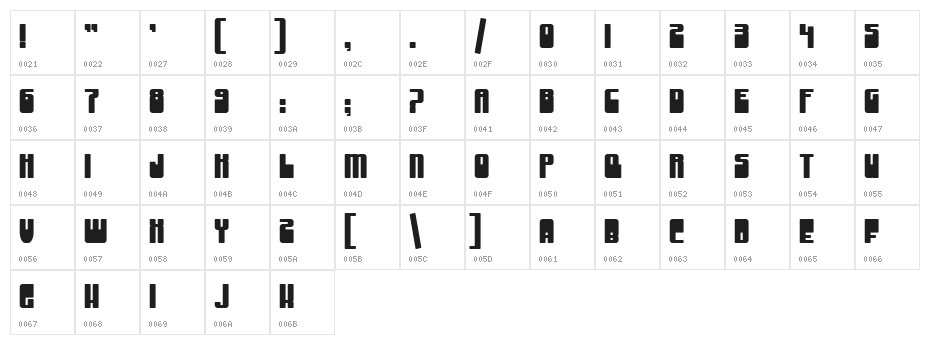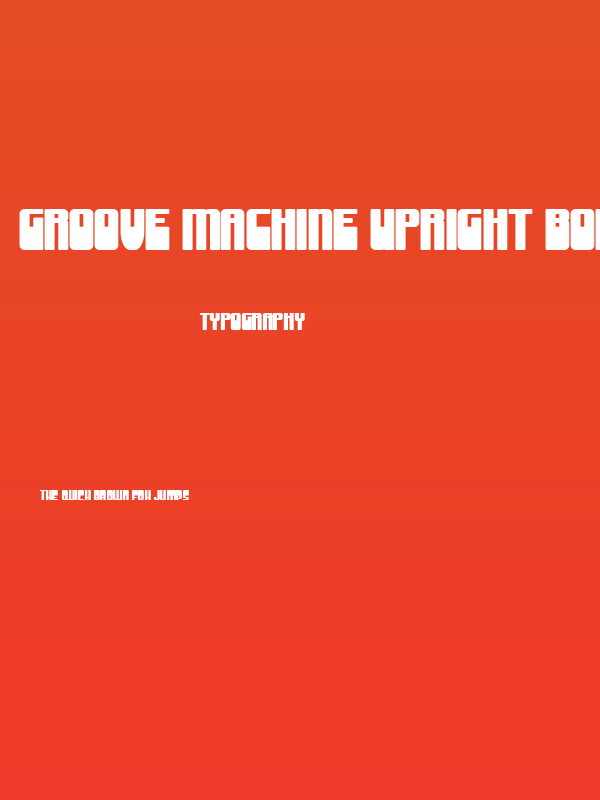
Groove Machine Upright Bold Font
Groove Machine Upright Bold Description
This font features a bold, geometric design with a strong presence. The characters are blocky and uniform, creating a sense of stability and modernity. The uppercase and lowercase letters share a similar structure, enhancing the cohesive look. Numbers and special characters maintain the same bold style, ensuring consistency across all text elements. The font's thick strokes and minimal contrast make it highly legible, even at smaller sizes. Its unique style is both eye-catching and versatile, suitable for a variety of design applications.
| Proposed Projects | Ideal for branding, posters, headlines, and any project requiring a strong visual impact. |